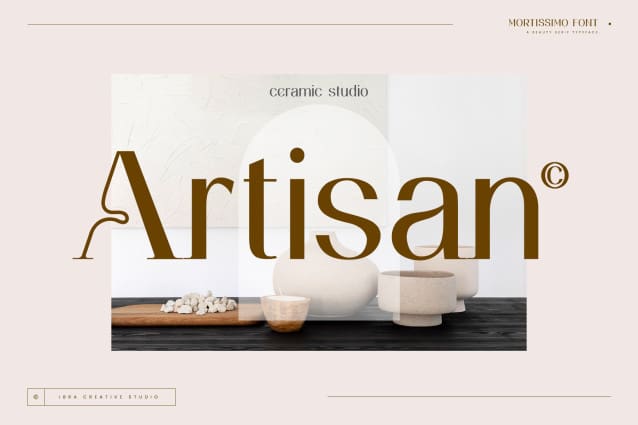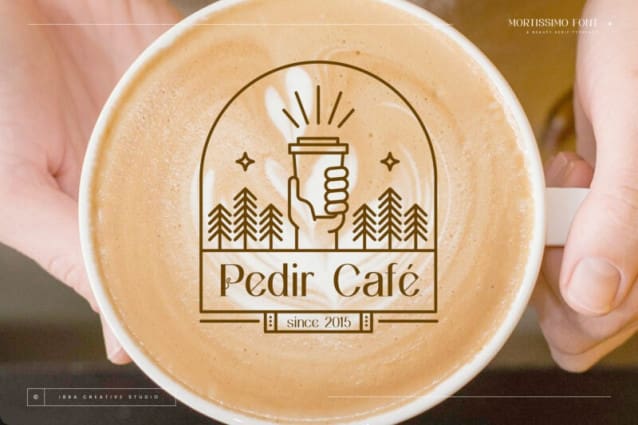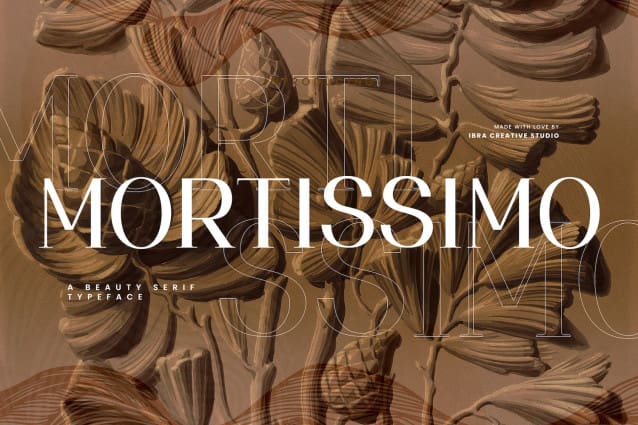
Mortissimo Font
Mortissimo Font, a captivating beauty serif typeface, exudes timeless elegance and sophistication. With gracefully elongated serifs and finely crafted letterforms, Mortissimo strikes a harmonious balance between classic aesthetics and contemporary design. Its delicate strokes and subtle curves convey a sense of refinement, making it an ideal choice for projects that demand a touch of grace and charm. Whether used in print or digital media, Mortissimo’s intricate details and graceful proportions contribute to a distinct visual appeal, capturing the essence of beauty and timelessness in typography.